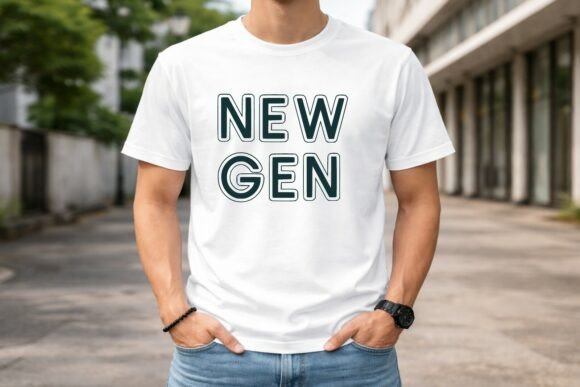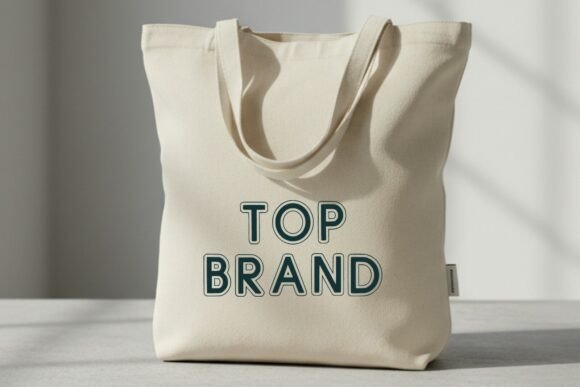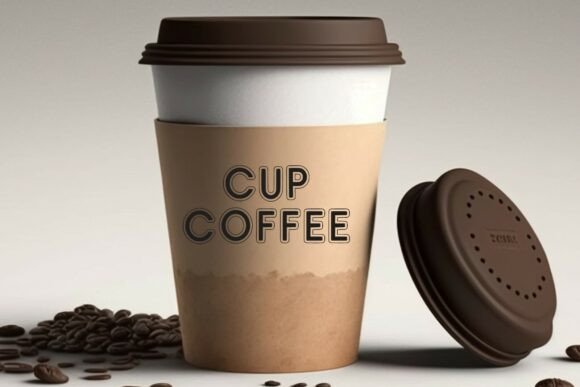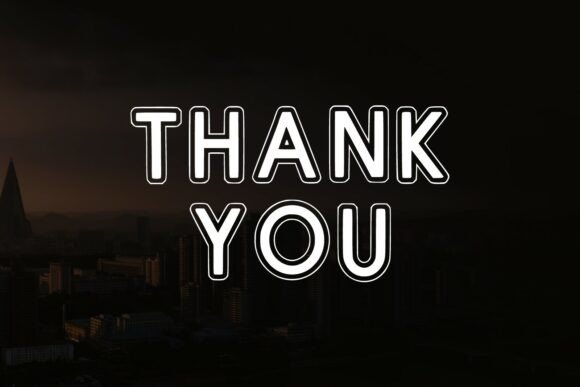
The Power of a Great Font: Introducing Bold Team Font
As a designer, there’s nothing quite like the thrill of bringing a project to life with the perfect font. Remember that moment when you stumbled upon the perfect combination of style and functionality, and suddenly your design went from good to great? For me, that moment came when I discovered the Bold Team Font. This modern outline display font has been a game-changer in my designs, and I’m excited to share its story with you.
With its strong letterforms and clean double-line outlines, the Bold Team Font is the perfect choice for headlines, posters, logos, and sports branding. Its bold yet minimal style makes it versatile and stylish, making it a valuable addition to any designer’s toolkit. Whether you’re working on a digital or print project, the Bold Team Font is sure to make your designs stand out.
Bold Team Font Key Features
- Font Family: Bold Team Font is a sans-serif font family designed for bold and modern typography. It is available in multiple weights, from light to extra bold.
- Character Set: Supports a wide range of languages, including Latin, Cyrillic, and Greek alphabets, making it suitable for international projects.
- Size and Resolution: Optimized for use at medium to large font sizes (14-48 points) and high resolutions (300 DPI and above), ensuring crisp and clear typography.
- Unique Characteristics: Bold Team Font features a distinctive geometric shape, with clean lines and a strong x-height, making it perfect for headlines, titles, and display typography.
- Font Pairing: Designed to work well with a variety of font styles, including serif, sans-serif, and script fonts, allowing for endless creative possibilities.
Bold Team Font Review
Overall, I think Bold Team Font is a decent choice for a bold, modern look. ✨ Its clean lines and geometric shapes make it perfect for titles and headings.
Here are some of its strengths:
- Highly legible, even at small font sizes
- Works well in digital formats, such as web and mobile
- Has a bold, confident feel that’s great for making statements
- Compatible with a wide range of design software
However, I do have some reservations:
- ⚠️ The font can feel a bit rigid and stiff at times, which may not be suitable for more creative or artistic projects
- ⚠️ Some users may find the font too bold or overpowering, especially in large quantities
- ⚠️ Limited character set and language support, which may be a concern for multilingual projects
Overall, I would say that Bold Team Font is a solid choice for designers who need a bold, modern font. While it may have some limitations, its strengths make it a great option for titles, headings, and other display typography.
Getting the Most Out of Bold Team Font
To get the most out of Bold Team Font, consider the following tips:
- Use it consistently throughout your design to create a cohesive look.
- Pair Bold Team Font with other fonts to create a unique typography combination.
Bold Team Font is ideal for:
- Headings and titles.
- Use Bold Team Font for the main text, making sure to adjust the font size and color to match your brand identity.
- Combine the font with a minimalist design aesthetic, using a simple background color and limited graphics.
- Consider adding a subtle texture or pattern to give the card some depth and visual interest.
- Use Bold Team Font for the main quote, making sure to adjust the font size and color to create a striking visual effect.
- Combine the font with a contrasting background color or image to make the text stand out.
- Consider adding some subtle graphics or icons to enhance the overall design and create a cohesive visual identity.
- Use Bold Team Font for the main text, making sure to adjust the font size and color to match your personal style.
Project 2: Inspirational Quote Poster
Create a motivational poster using Bold Team Font to emphasize key words and phrases. The font’s bold design makes it perfect for grabbing attention and conveying a message.
Project 3: Personalized Journal Cover
Create a customized journal cover using Bold Team Font to add a personal touch. The font’s modern design makes it perfect for showcasing your name, initials, or a special message.